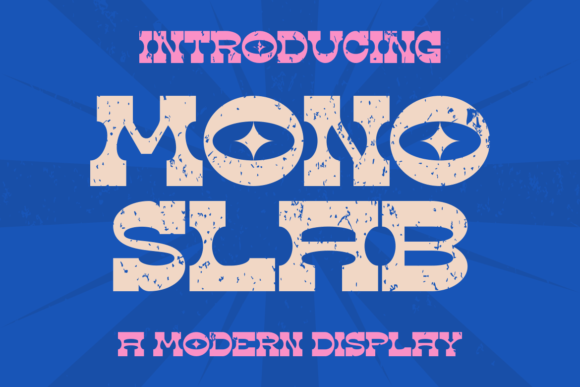
Introducing Mono Slab Font, a contemporary font family that exudes character and charm. This slab serif typeface is a masterpiece crafted by the talented Marvadesign, a name synonymous with excellence in the world of typography.
With its strong personality and confident stance, Mono Slab Font commands attention wherever it appears. Bold and authentic, it is a force to be reckoned with in the realm of display fonts. Its sharp serifs and generous proportions lend it an air of distinction, making it the perfect choice for those seeking to make a powerful statement.
Mono Slab Font's versatility knows no bounds. It shines in a myriad of branding endeavors, adding a touch of sophistication to logos, t-shirt designs, product packaging, and countless other applications. Its ability to effortlessly adapt to a diverse range of contexts makes it a true asset for designers of all skill levels.
Transport yourself to a bygone era with Mono Slab Font. Its nostalgic charm evokes memories of vintage travel posters and classic advertisements. Harness the font's innate ability to evoke emotions and create a sense of wanderlust in your designs. Let Mono Slab Font be your creative compass, guiding you on a journey through time and space.
Unleash your creativity and let Mono Slab Font ignite your imagination. Whether you seek to design a captivating logo, create eye-catching t-shirts, or elevate your product packaging to new heights, this font has the power to transform your vision into a reality. Its timeless aesthetic transcends trends, ensuring that your designs will remain relevant for years to come.
Mono Slab Font is more than just a font; it's an artistic expression that speaks to the soul. Its bold lines and confident curves create a visual symphony, captivating the senses and leaving a lasting impression. With Mono Slab Font as your creative ally, you'll have the tools to craft designs that resonate with your audience and leave them yearning for more.